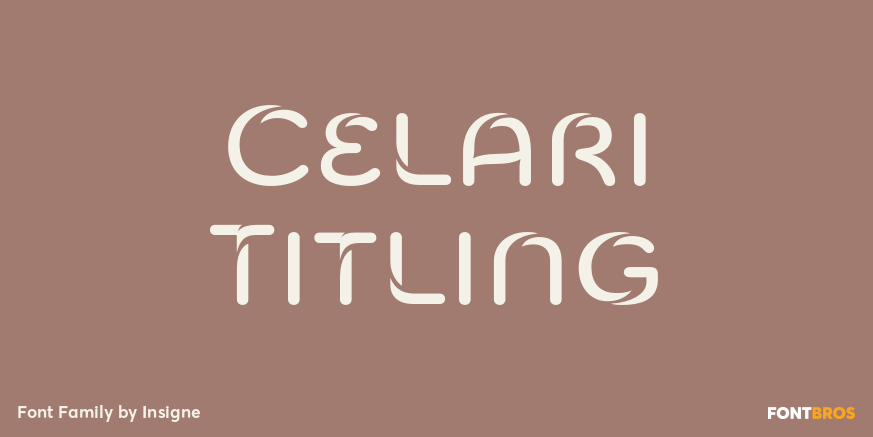
Celari Titling
About Celari Titling
Need for speed? Satisfy it with insigne\’s Celari. Take it for a drive and watch how its simple curves, easy lines, and sturdy shapes handle the edges and corners of your projects with smooth and rapid execution. The negative space cuts through the rounded…